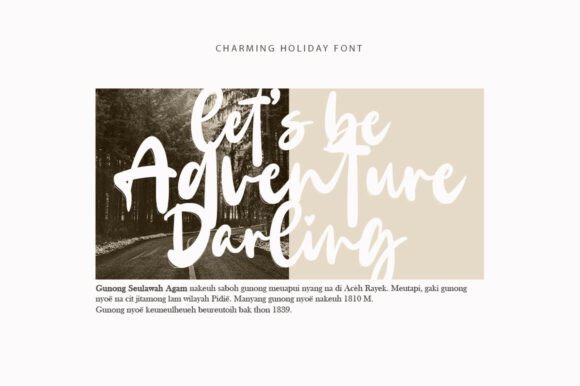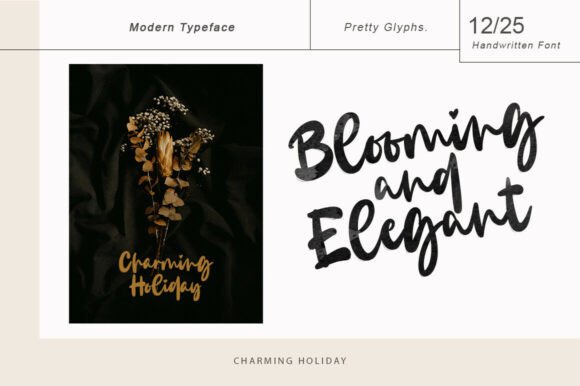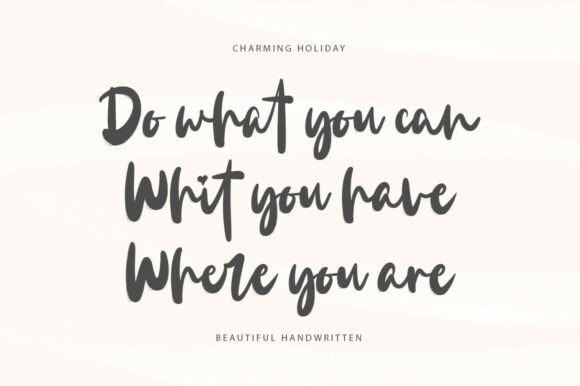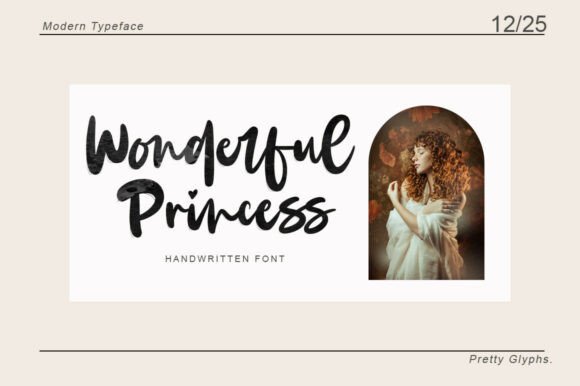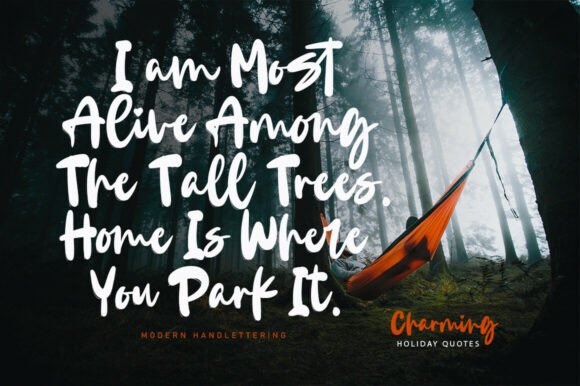
Introducing the Charming Holiday Font: A Festive and Artistic Handwritten Script
Are you looking for a font that captures the essence of the holiday season with a unique and artistic twist? Look no further than the Charming Holiday font, a textured and expressive handwritten script that perfectly balances festive cheer with a raw, artistic edge. This charming font is ideal for designers and crafters seeking to add a touch of rustic charm and personality to their holiday projects.
A Vintage, Handcrafted Appearance
The Charming Holiday font features “distressed” or ink-textured strokes that give it a vintage, handcrafted appearance. This unique texture adds a layer of depth and character to the font, making it perfect for creating rustic holiday cards, artisanal winter market branding, and cozy lifestyle graphics. The font’s imperfect beauty makes it an excellent choice for brands that value authenticity and a warm, personal connection with their audience.
Heart-Shaped Alternates and Fluid Connections
One of the standout features of the Charming Holiday font is its heart-shaped alternates and fluid connections. These decorative elements add a touch of romance and personality to every word, making it perfect for creating sentimental and heartfelt holiday messages. The font’s fluid connections also help to create a sense of movement and flow, adding to its overall charm and character.
Ideal for Rustic and Cozy Projects
The Charming Holiday font is perfectly suited for rustic and cozy projects, such as holiday cards, winter market branding, and lifestyle graphics. Its textured and expressive nature makes it an excellent choice for pairing with natural textures like kraft paper or wood grain, which can help to amplify its rustic charm. Whether you’re creating a holiday card, a festive poster, or a cozy social media graphic, this font is sure to add a touch of warmth and personality to your design.
Perfect for Brands that Value Authenticity
In today’s digital age, it’s easy for brands to get lost in the noise and appear impersonal. The Charming Holiday font offers a refreshing alternative, with its imperfect beauty and vintage charm. Brands that value authenticity and a warm, personal connection with their audience will love this font, which can help to create a sense of nostalgia and warmth in their marketing materials.
Tips for Using the Charming Holiday Font
Here are a few tips for getting the most out of the Charming Holiday font:
- Pair the font with natural textures like kraft paper or wood grain to amplify its rustic charm.
- Use the font’s heart-shaped alternates and fluid connections to add a touch of romance and personality to your designs.
- Experiment with different colors and textures to create a unique and eye-catching look.
- Use the font to create a sense of nostalgia and warmth in your marketing materials.
The Charming Holiday font is a unique and artistic handwritten script that’s perfect for designers and crafters seeking to add a touch of rustic charm and personality to their holiday projects. With its textured and expressive nature, heart-shaped alternates, and fluid connections, this font is sure to capture the essence of the holiday season with a raw, artistic edge. Whether you’re creating holiday cards, winter market branding, or cozy lifestyle graphics, the Charming Holiday font is an excellent choice for brands that value authenticity and a warm, personal connection with their audience.